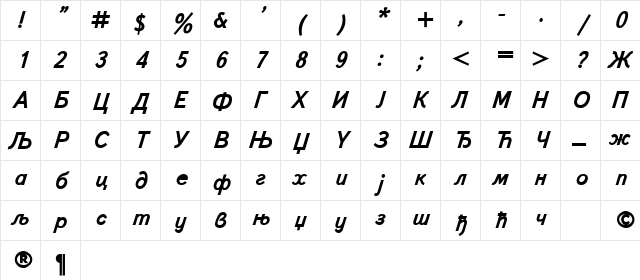
Book-Cirilica Bold Italic Font Preview
Design Context for Book-Cirilica Typeface
Book-Cirilica is a composed and adaptable typeface that performs quietly and consistently across a wide range of design contexts. Its italic angle brings a sense of urgency and motion to the letterforms. The heavy weight commands attention and anchors typographic hierarchies.
Pro Tip: Try Book-Cirilica for annotation and caption copy alongside an upright companion — the contrast in angle creates a dynamic but ordered typographic system.